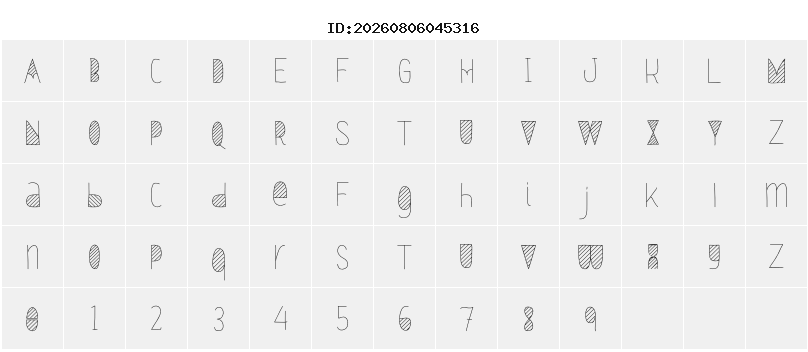
Oxymorons.otf
About Oxymorons.otf
Oxymorons.otf is a modern, elegant sans-serif font designed for ultimate readability and visual harmony. Perfect for branding, headlines, web design, and print materials.